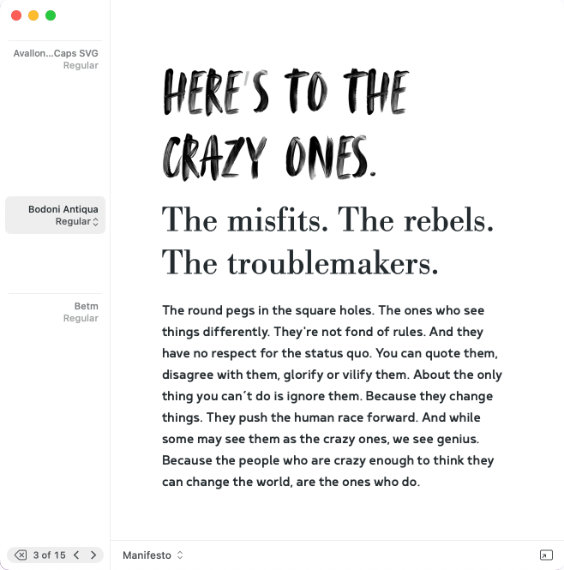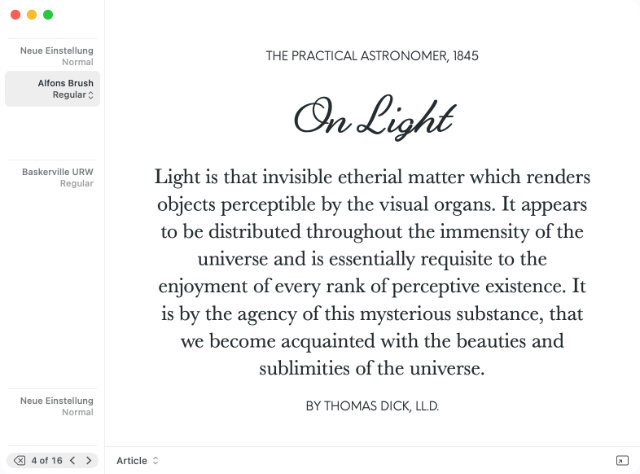
Pairing Fonts
Elevate your designs with font pairings that synergize. Use the Pairing Studio to match fonts and explore typeface combinations.
Pairing Studio
The Pairing Studio is a panel in Typeface app that allows you to preview font pairings in a text layout. The distraction-free interface is designed to rapidly try different font combinations and to discover what works well together and what doesn’t.
It aims to help with the first exploration steps in your workflow. Layouts can be adjusted in many ways, but are intentially kept simple to focus on pairing fonts, such that you can make a short list of fonts to use in your actual design.
To open a Pairing Studio select a font in your library and choose Font > Pair… from the main menu. You can also press CommandK to pair selected fonts or right click (Control-click) and choose Pair… from the context menu.
The Pairing Studio panel shows an adjustable text layout consisting of multiple text blocks. The layout selector at the bottom of the panel allows you to switch between layout templates. There are several presets available such as Logo, Article and Hierarchy.
You can customize these layouts and create new ones for your projects. Edit the text and appearance (font size, tracking, alignment, etc.) by double clicking on a text block or by using the right click (Control-click) context menu. Learn more about editing layouts
Pairing Fonts
Pairing Studio — fonts on the left, layout on the right
Each block in the layout is connected to a particular font. The picked fonts are visible in the sidebar on the left, one for each text block. The sidebar keeps a list of font candidates which you can cycle through. More font candidates can be added by dragging them from the main window to a text block in the studio. Or select some fonts in the overview and choose Font > Pair… from the main menu (CommandK).
Click on a text block or on a font in the sidebar to select it. Then you can browse through your candidate fonts using the navigation controls at the bottom of the sidebar.
Apply next candidate
Click on the ❯ button or press the → key on your keyboard.
Apply previous candidate
Click on the ❮ button or press the ← key on your keyboard.
Remove a candidate
Click on the ⌫ button or press the Delete key on your keyboard. The selected font candidate(s) will be removed.
Note: removing a candidate will remove it from all blocks. A studio has a single list of font candidates, shared by all blocks in the layout. If you remove a candidate that is still in use by another block, that font will be striked through in the sidebar.
Adjust font style
To change the font style first select a font in the sidebar then click on the style dropdown. The dropdown menu lists all available styles of that font family. You can also navigate through styles by pressing Option↑ (lighter weight) or Option↓ (heavier weight) on your keyboard.
Font and style changes are applied to all selected blocks. Select multiple fonts in the sidebar by Command or Shift clicking. Or press CommandA to select all fonts at once. The ↑ and ↓ arrow keys allow you to navigate up and down through the text blocks.
Press Command+ or Command- to increase or decrease the font size of selected blocks. Option+ and Option- allow you to adjust tracking. Add the Shift modifier key to increase the increments for these shortcuts.
Immersive pairing
Want to focus on your layout without any distracting UI? Choose View > Toggle Sidebar from the main menu or press Command/ to hide the sidebar.
Font pairing workflows
Your exploration workflow starts with finding some font candidates to pair. You may begin with an anchor font which is a font that you want to base your design around.
1. Select your base font in the Typeface library
2. Choose Font > Pair… from the main menu or press CommandK
Then add additional candidates to see which fonts pair nicely with your primary font.
1. Browse through your library in the main window to find a candidate font
2. Drag the font to the Pairing Studio to apply it to a specific text block
You can drop a font directly on the text or on one of the candidates in the sidebar.
Alternatively, add additional fonts from the overview by choosing Font > Pair… from the main menu (CommandK). The fonts will be applied to the blocks you have selected in the last focused Pairing Studio. Position the Pairing Studio panel next to the main Typeface window such that you can browse fonts and view your layout side by side.
Once you have collected a few candidates you can navigate through them using the navigation controls in the Pairing Studio sidebar. Click on a text block or click on a font in the sidebar to select it. Navigate to the next/previous candidate using the arrows at the bottom of the sidebar or use the ← and → arrow keys on your keyboard until you find something you like.
To change the font style (weight, italic etc.) click on the style dropdown in the sidebar. Then choose a new weight from the dropdown menu.
Note how this naturally applies to a single font family: the separate styles in a family have some contrast (weight/slant), yet their form is similar.